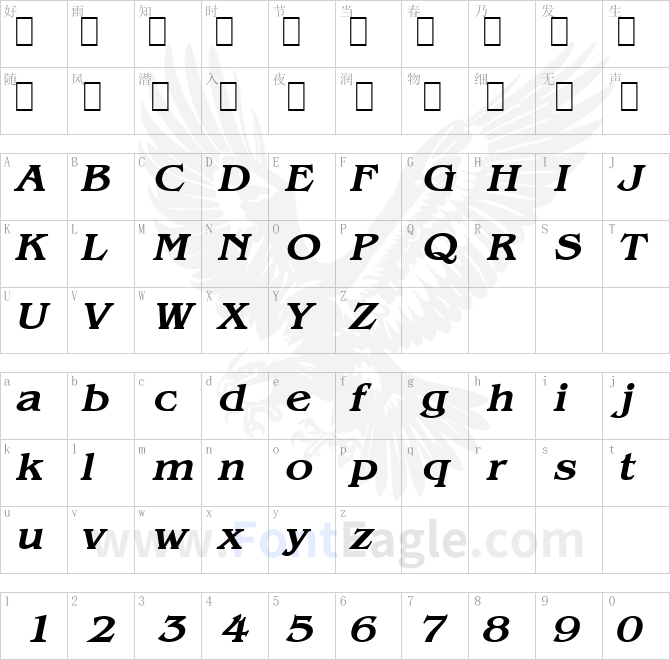
- Font name:Bangle-Extended
- Font Subfamily ID:Alts:Bangle-Extended Bold Italic
- Font Full Name:Bangle-Extended Bold Italic
- Postscript:Bangle-Extended-BoldItalic